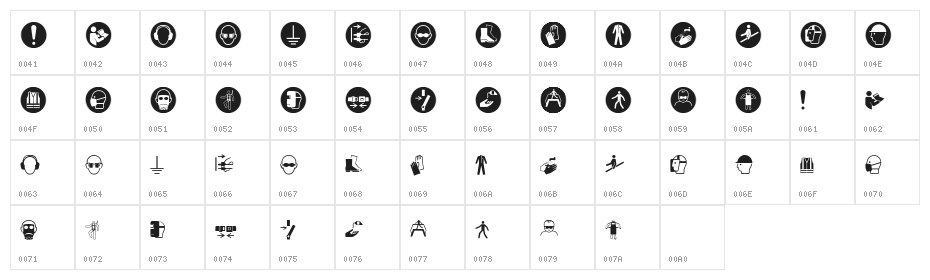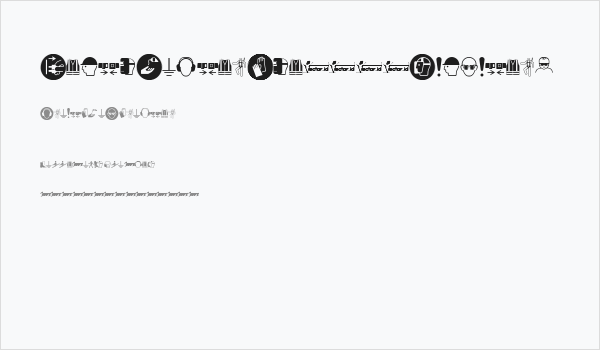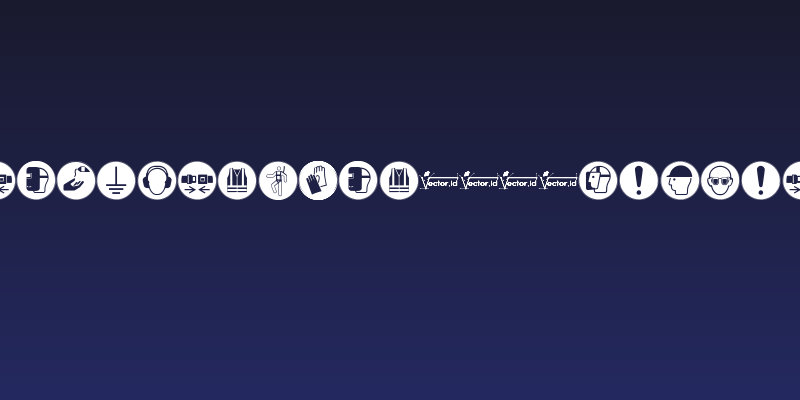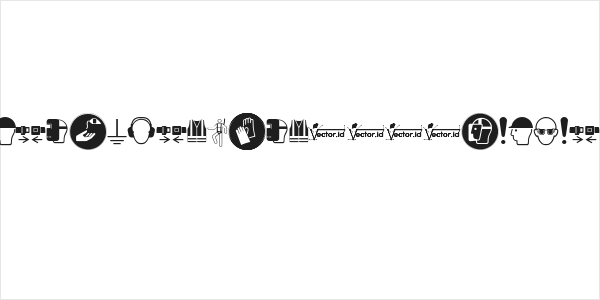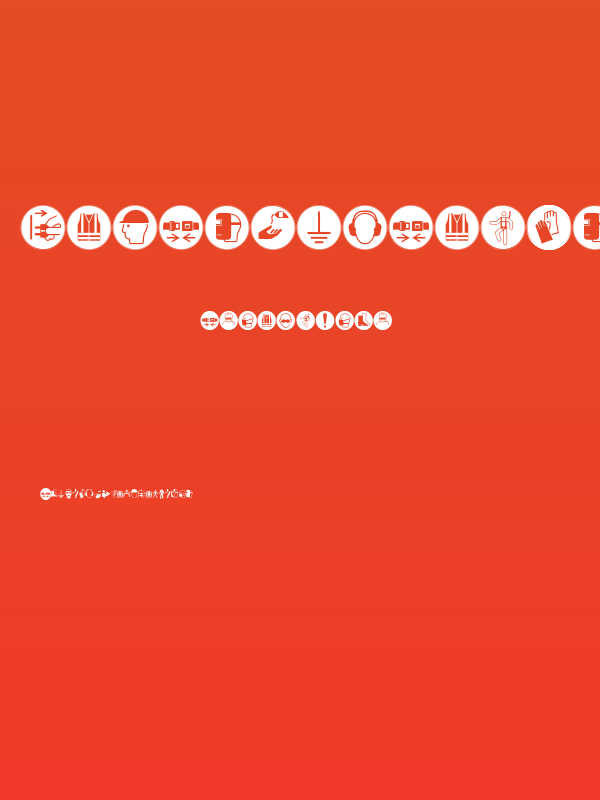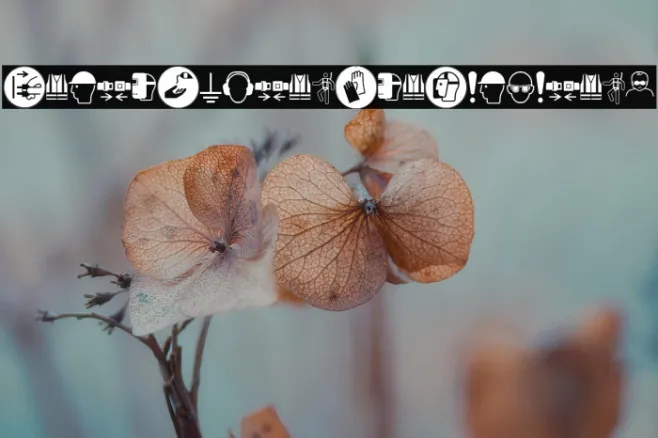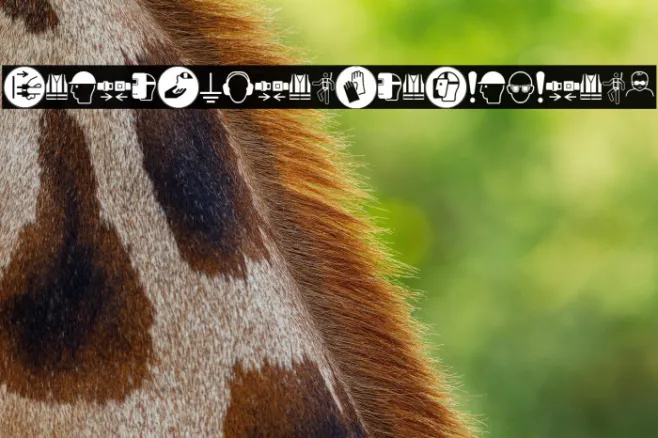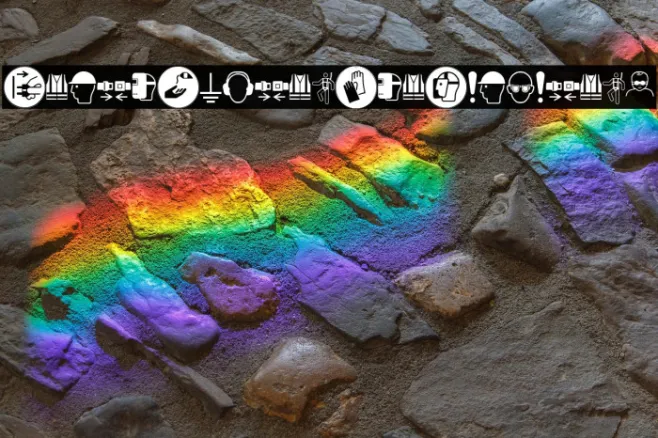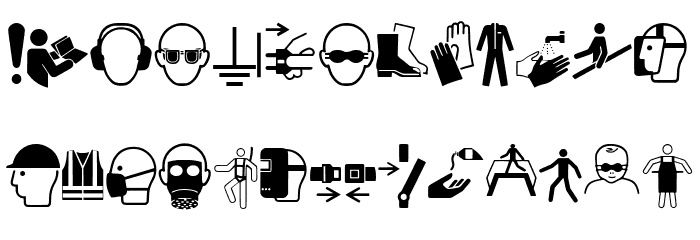
FontsVectorIso7010Mandatory Font
FontsVectorIso7010Mandatory Description
A pictogram-based font featuring ISO 7010-style mandatory safety and instruction symbols, rendered in bold, high-contrast black and white with circular backgrounds and simplified human figures or objects.
| Overall Style | Functional, Modern, Industrial |
| Use Case | Signage, Instructional graphics, Posters |
| Proposed Projects | Safety signage, industrial manuals, workplace posters, instructional graphics, compliance documents. |